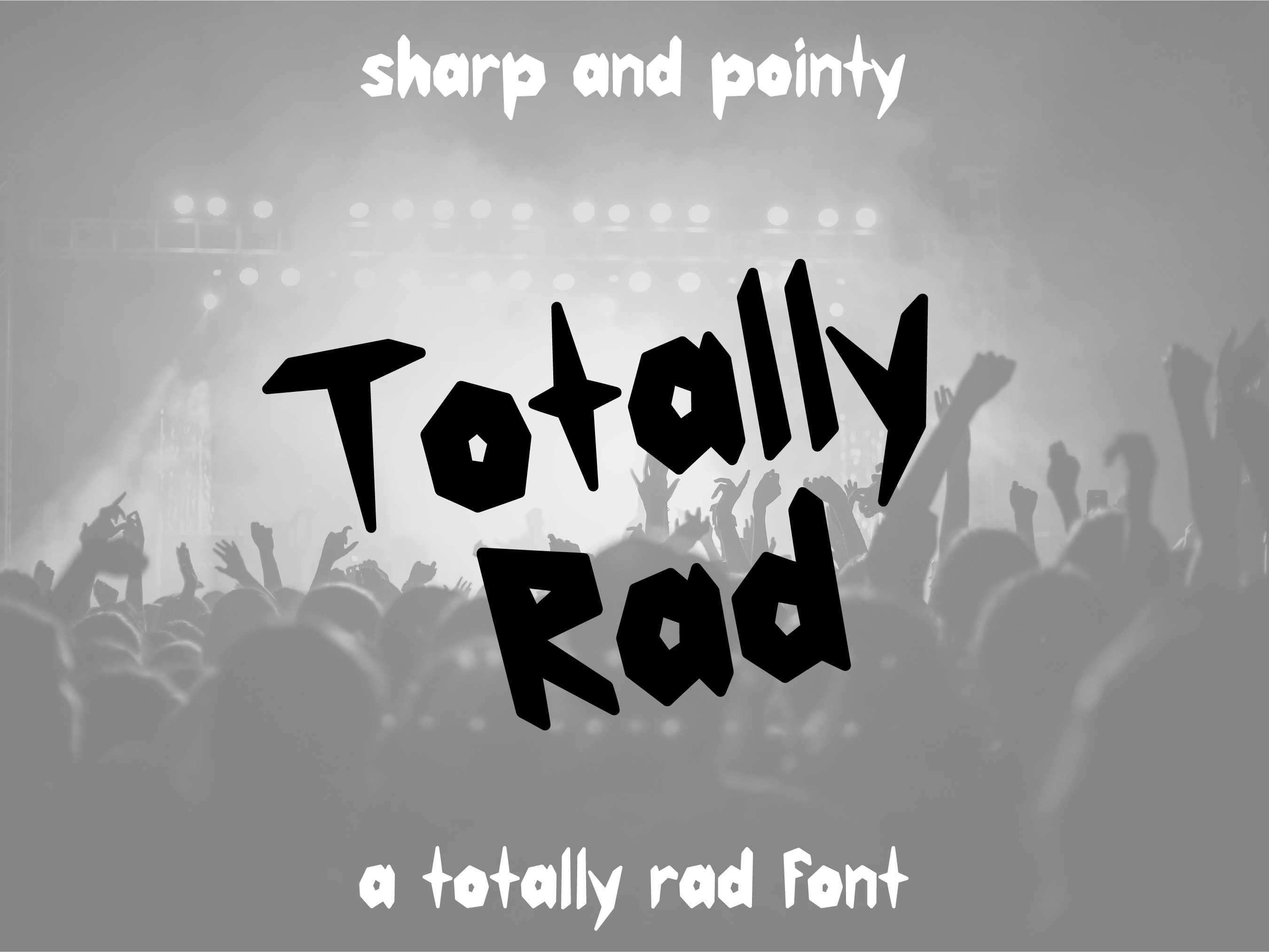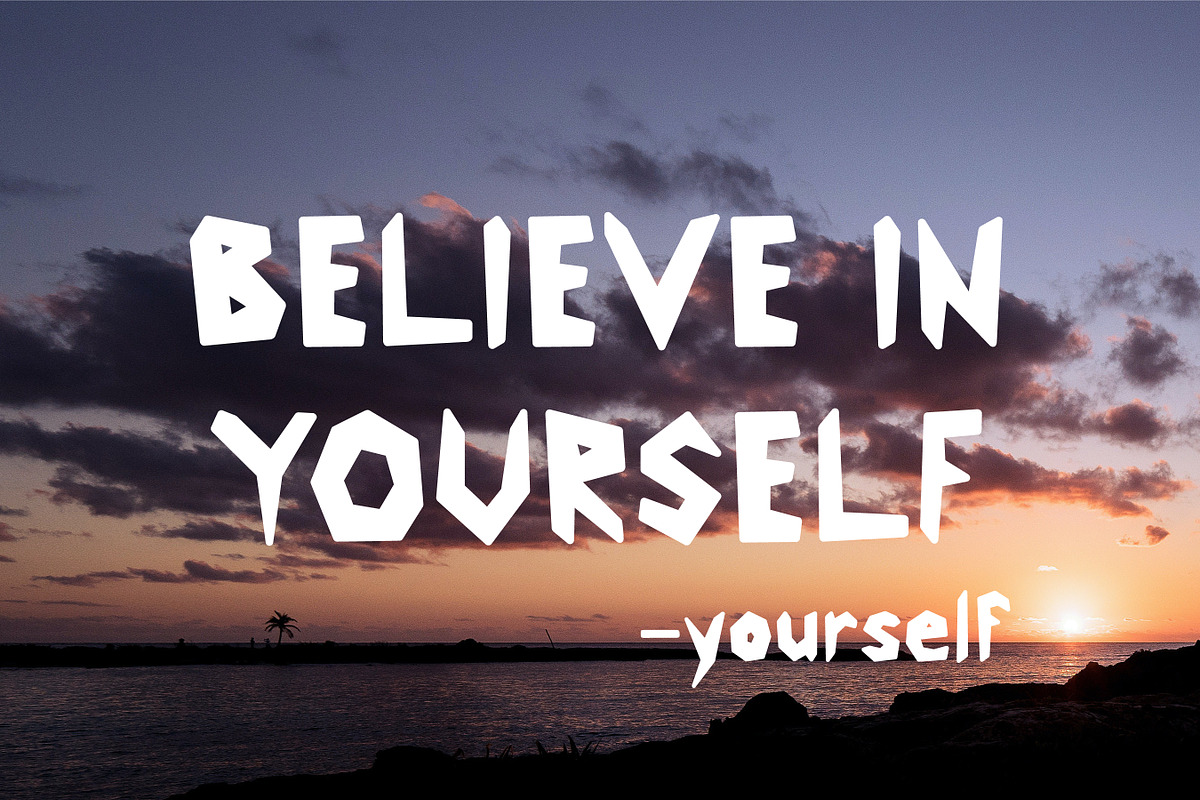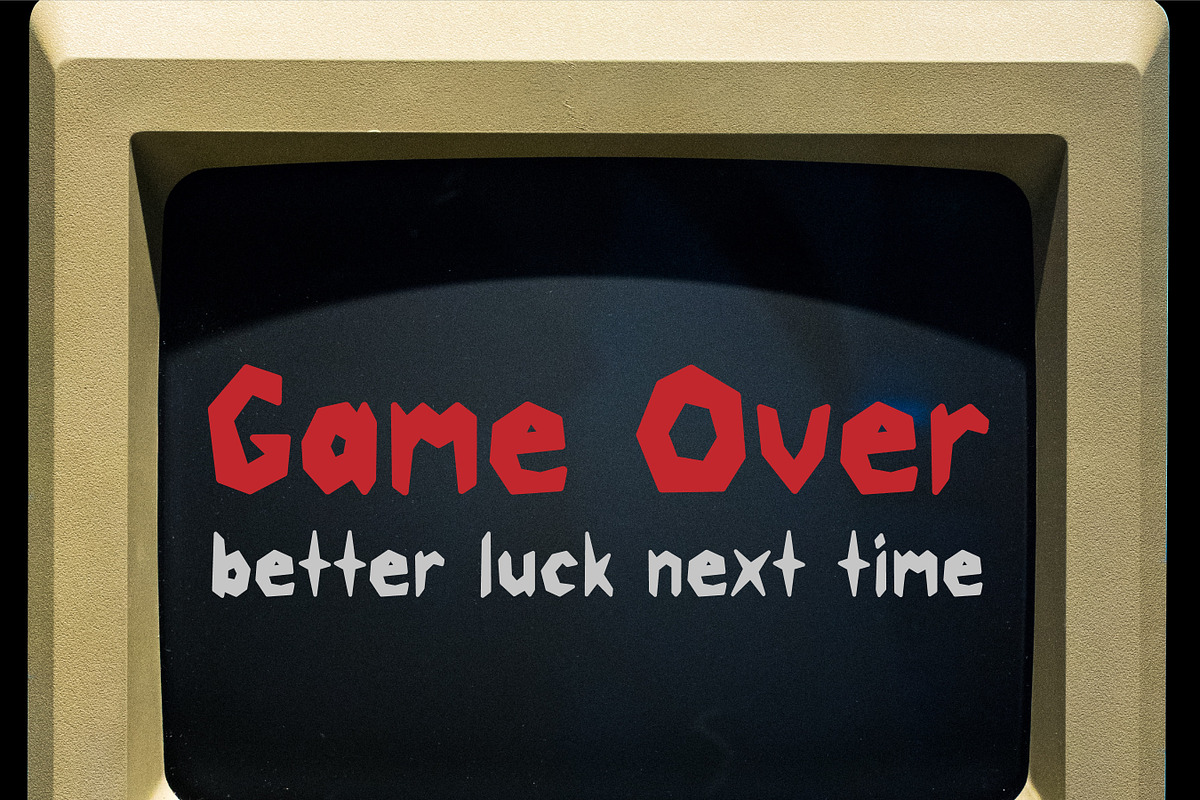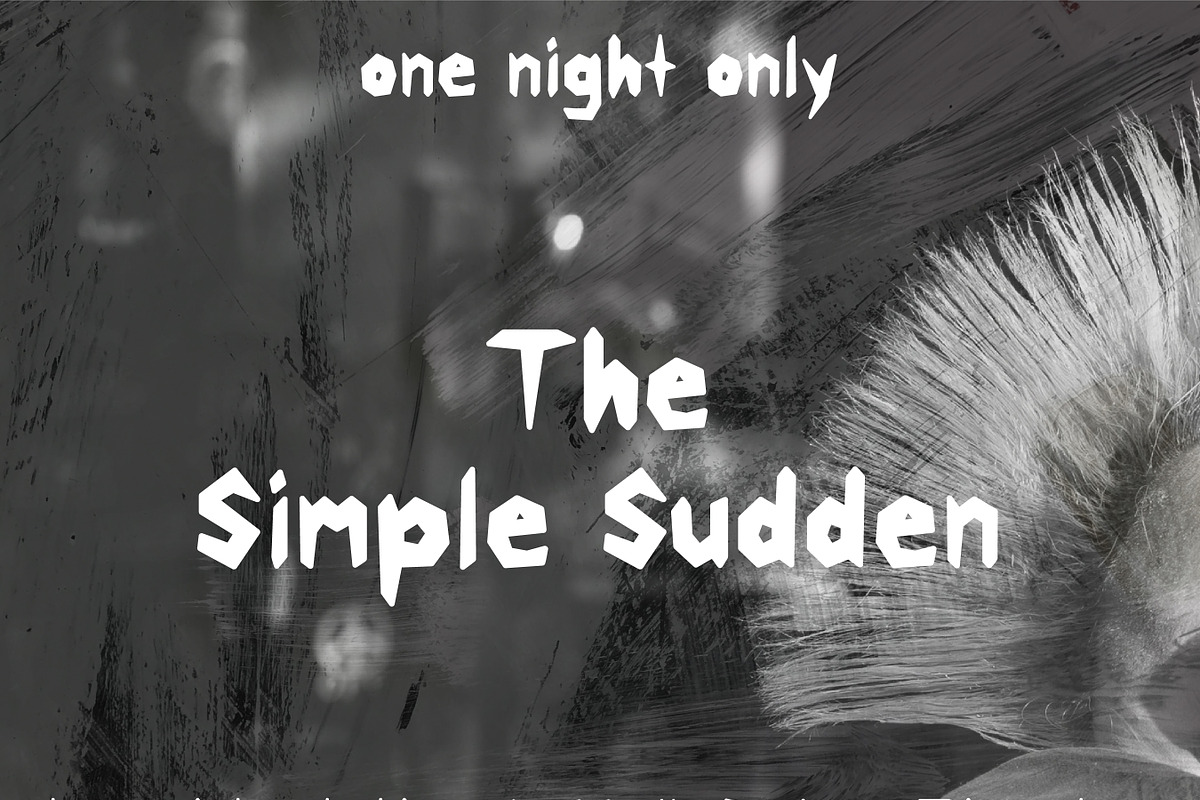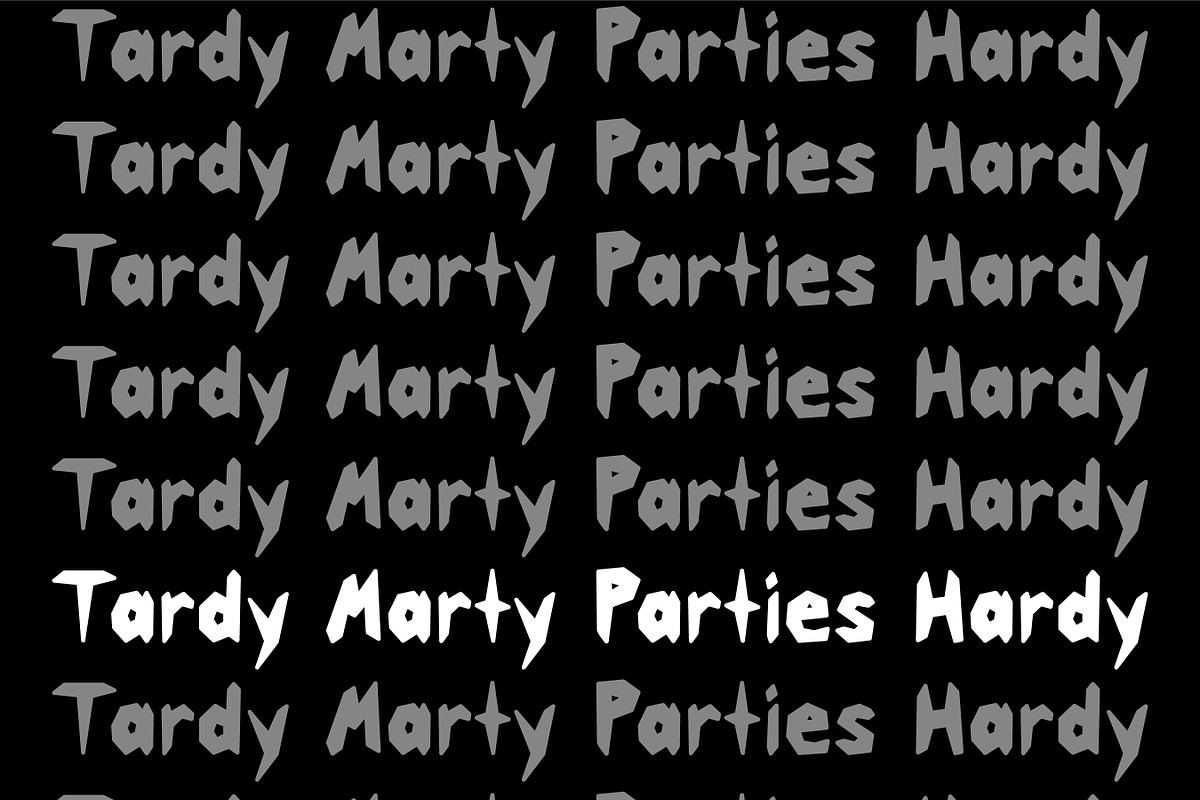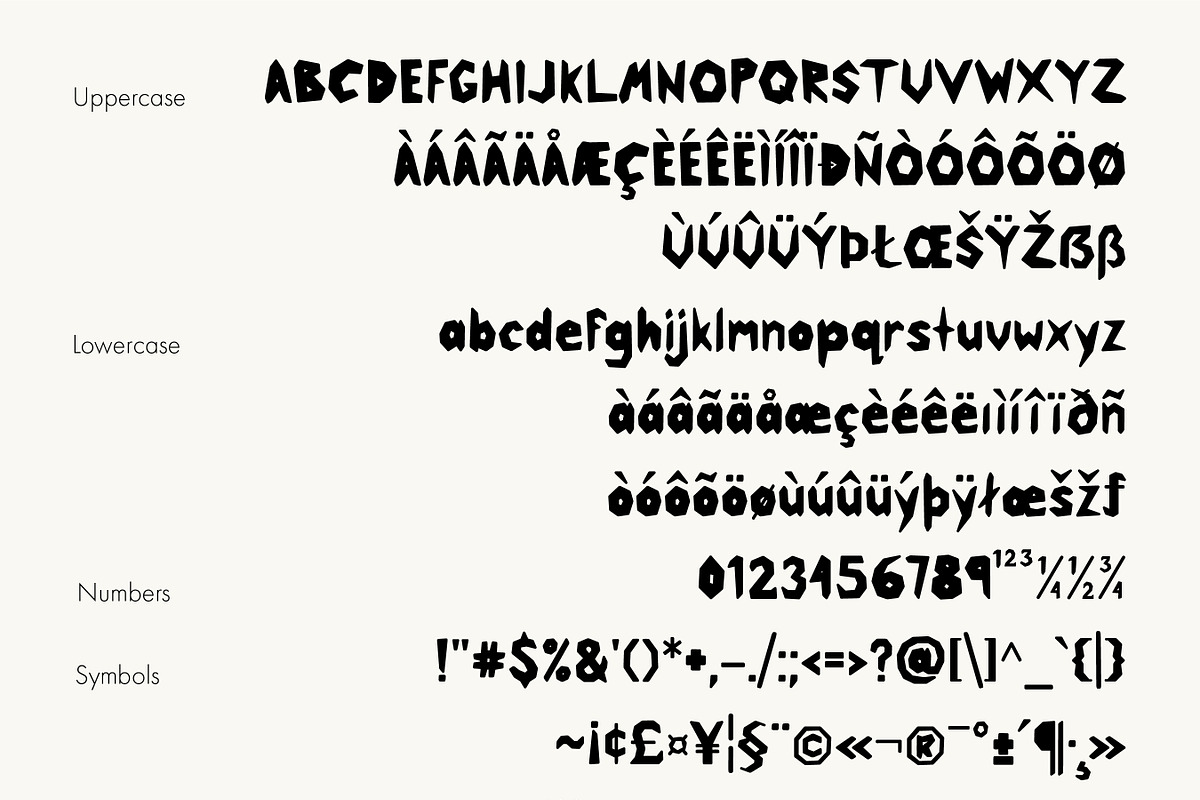
Totally Rad Font
This font is anything but minimal. It has an edgy personality with asymmetrical qualities. This edgy font is perfect to use for a band or and edgy poster.